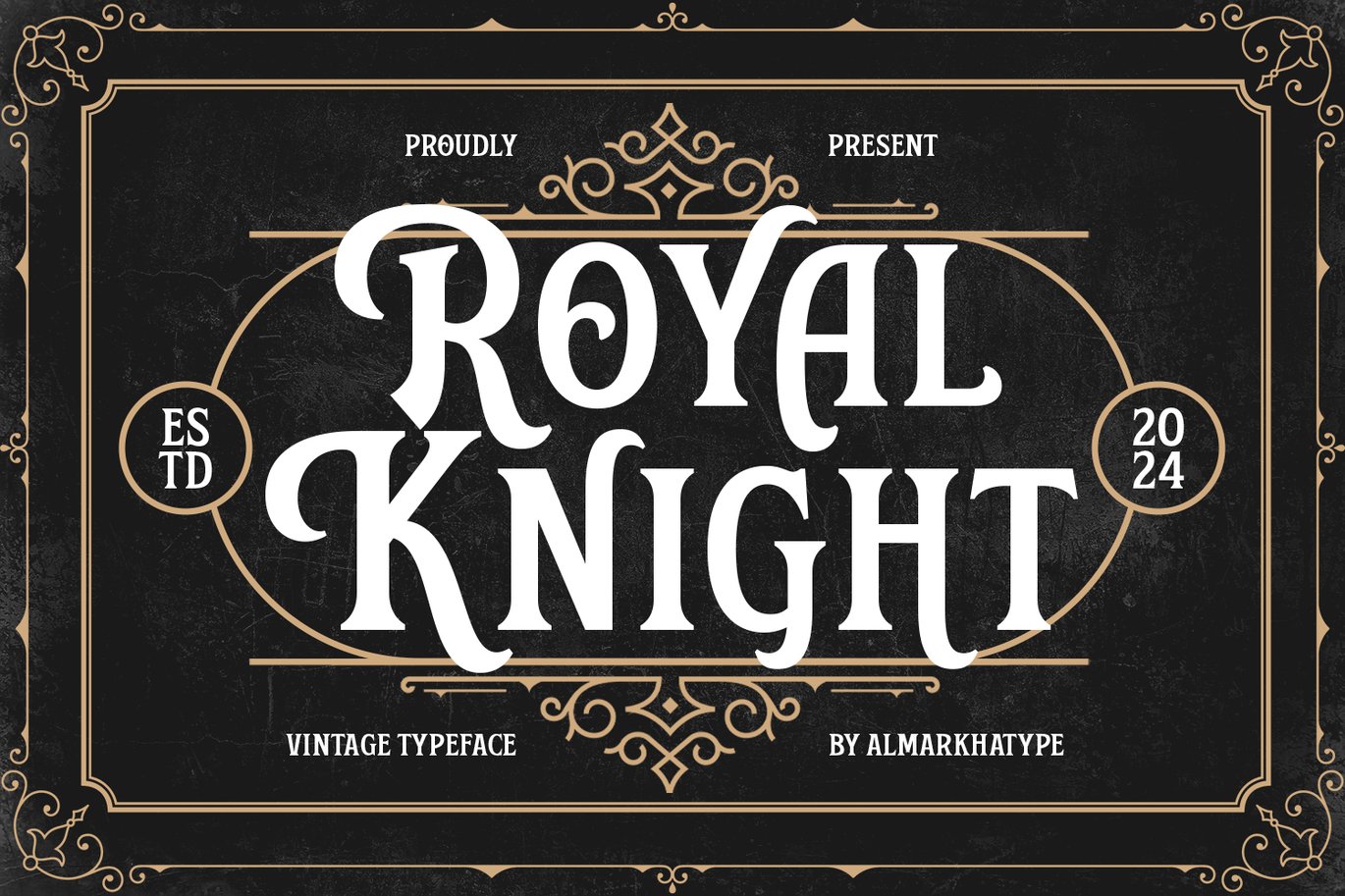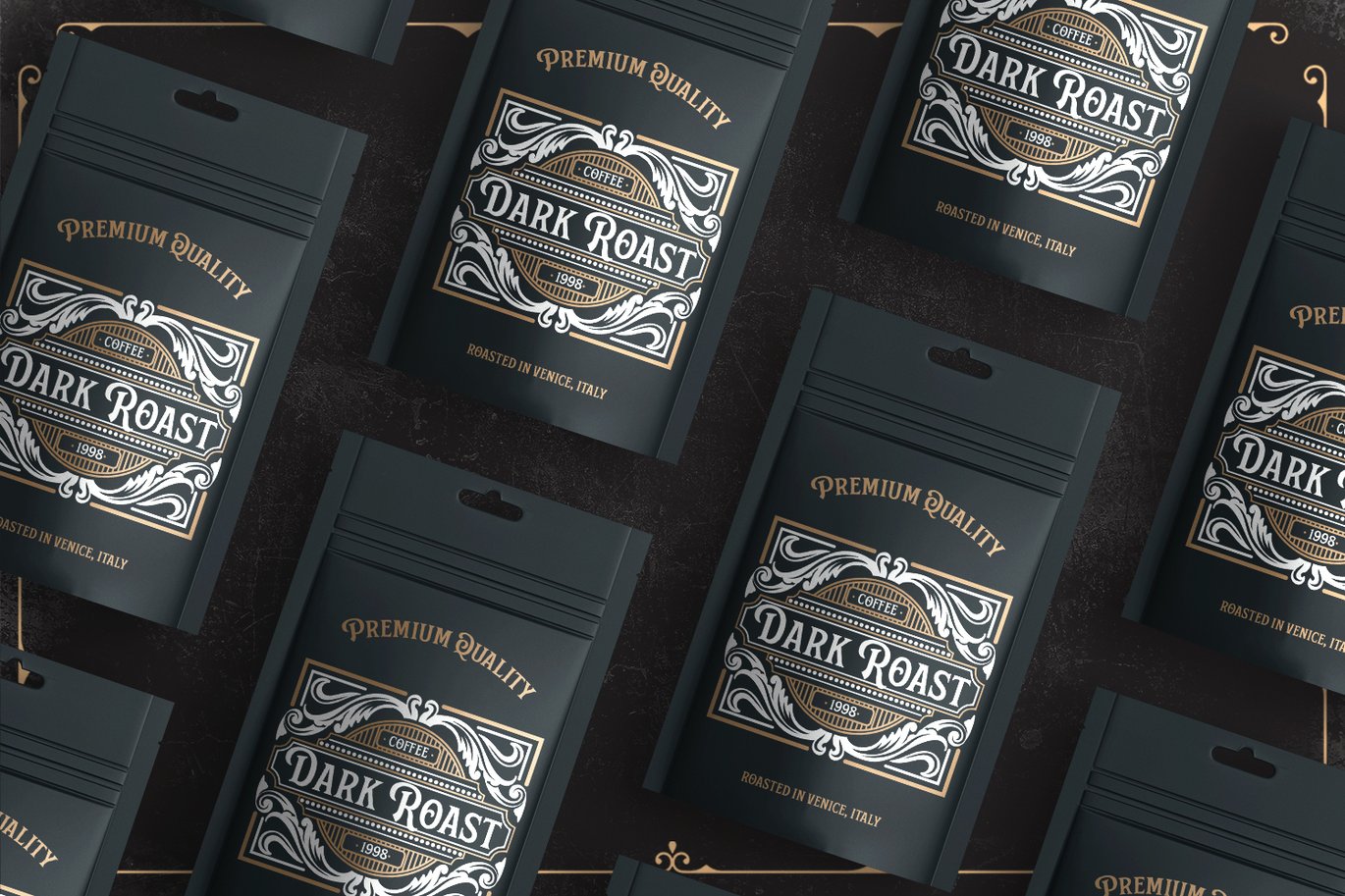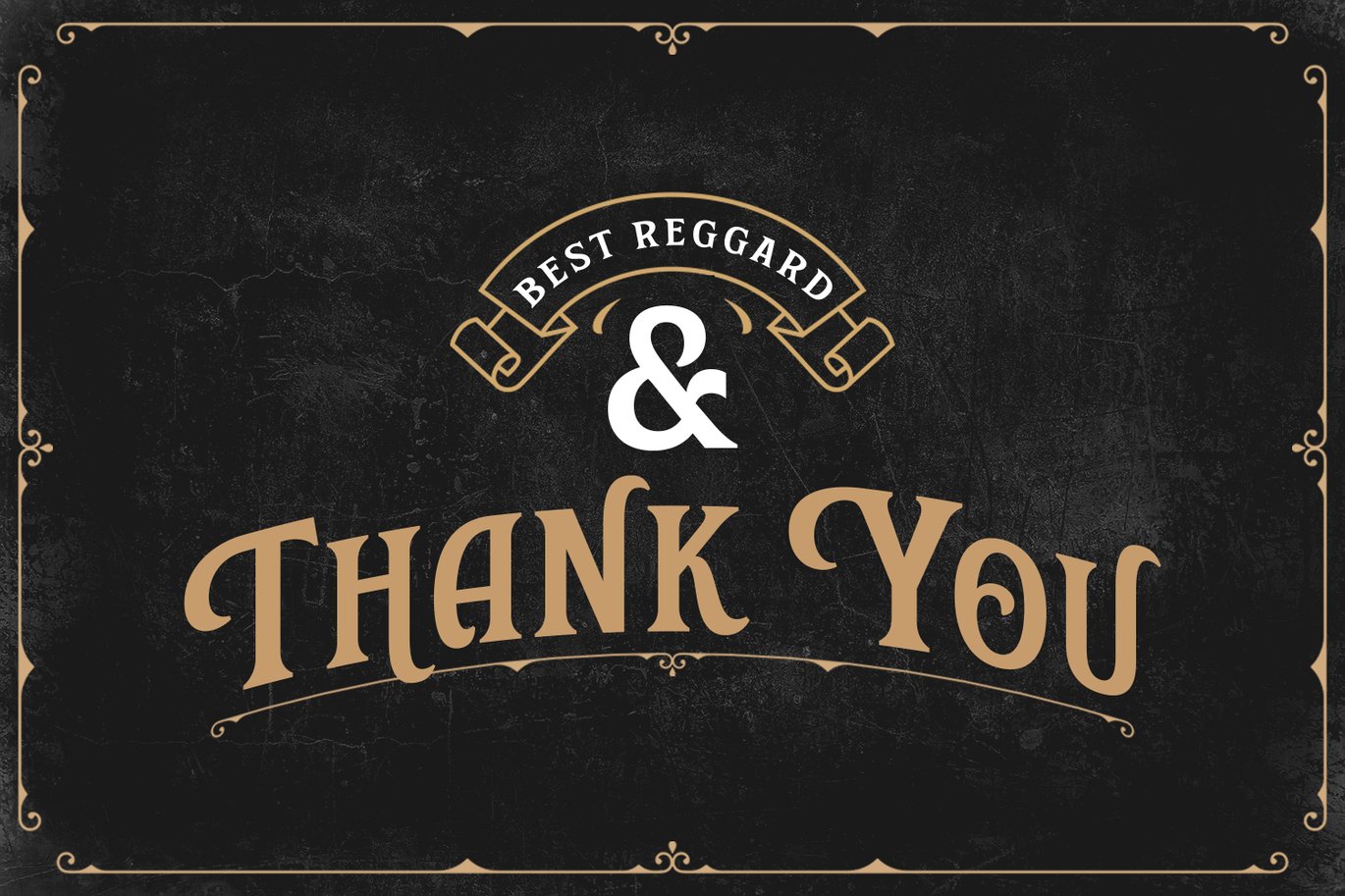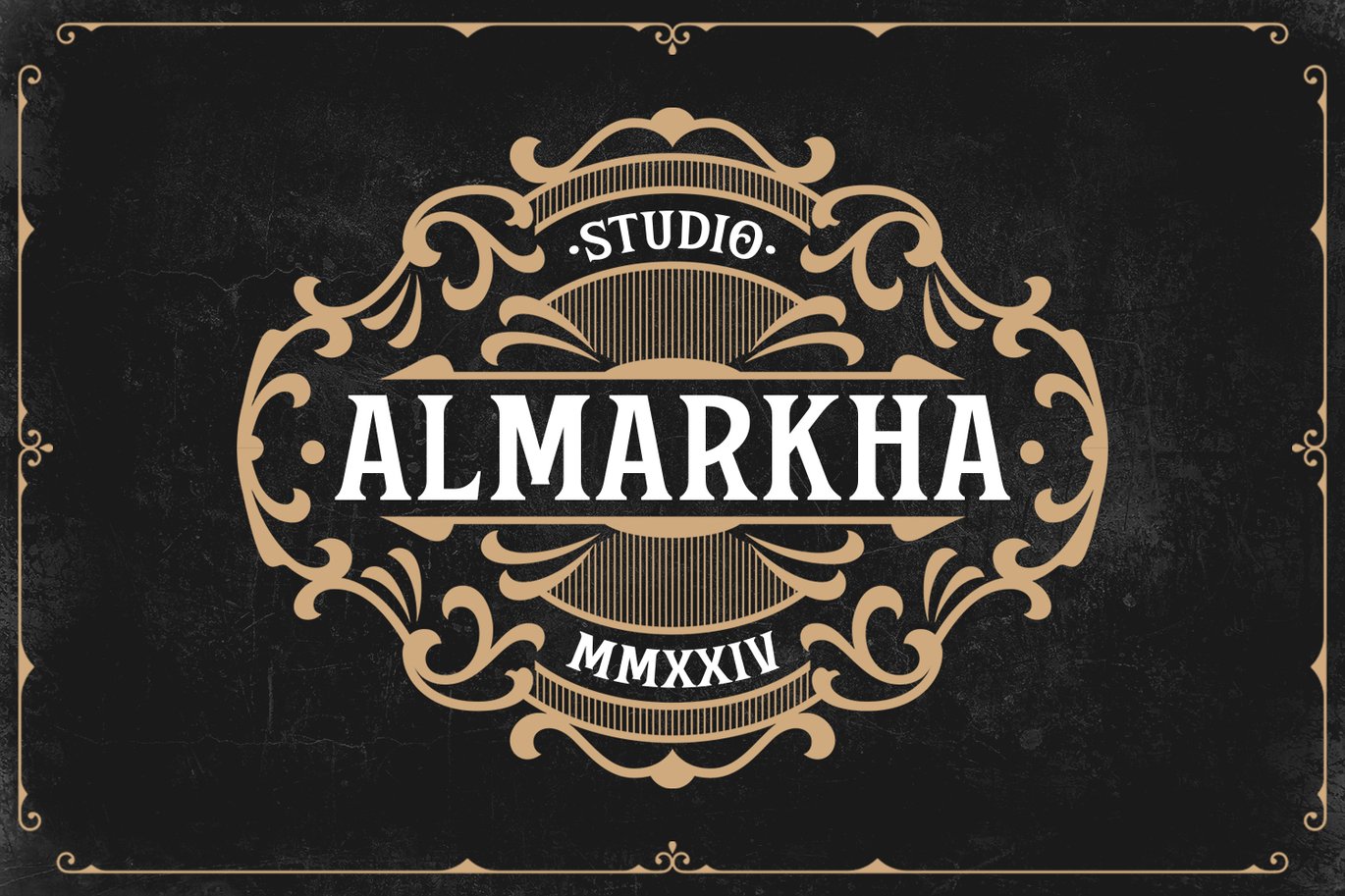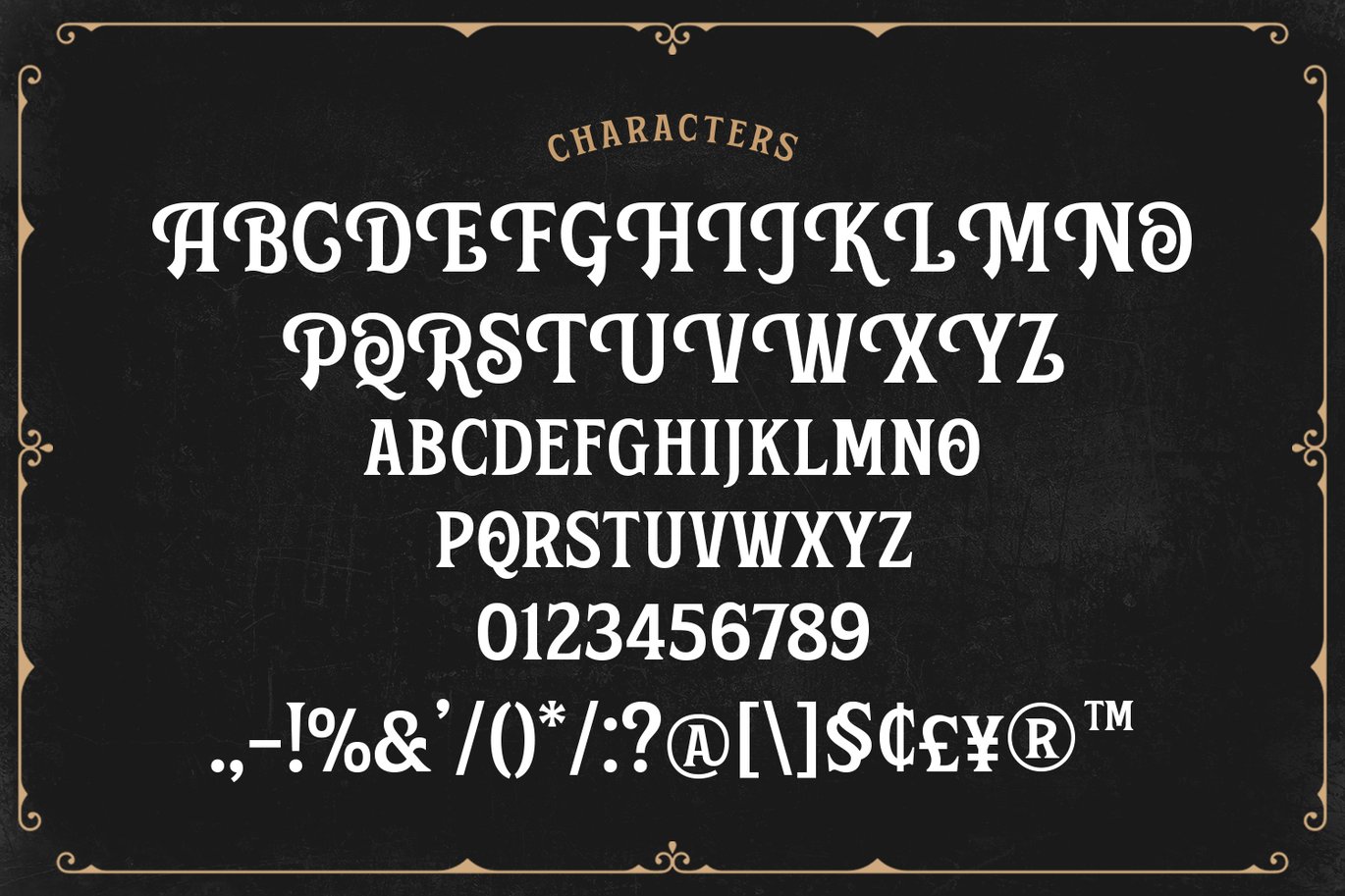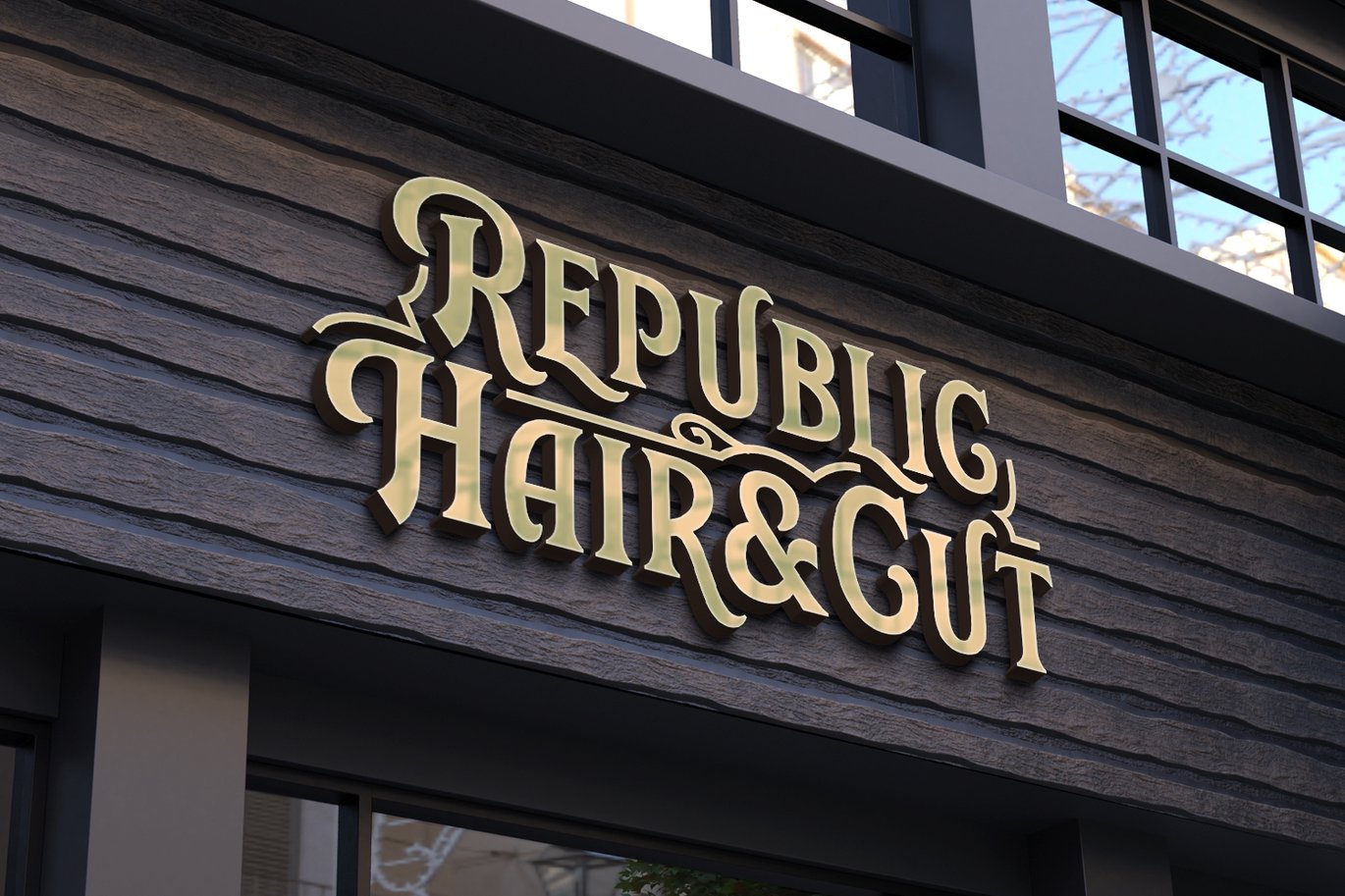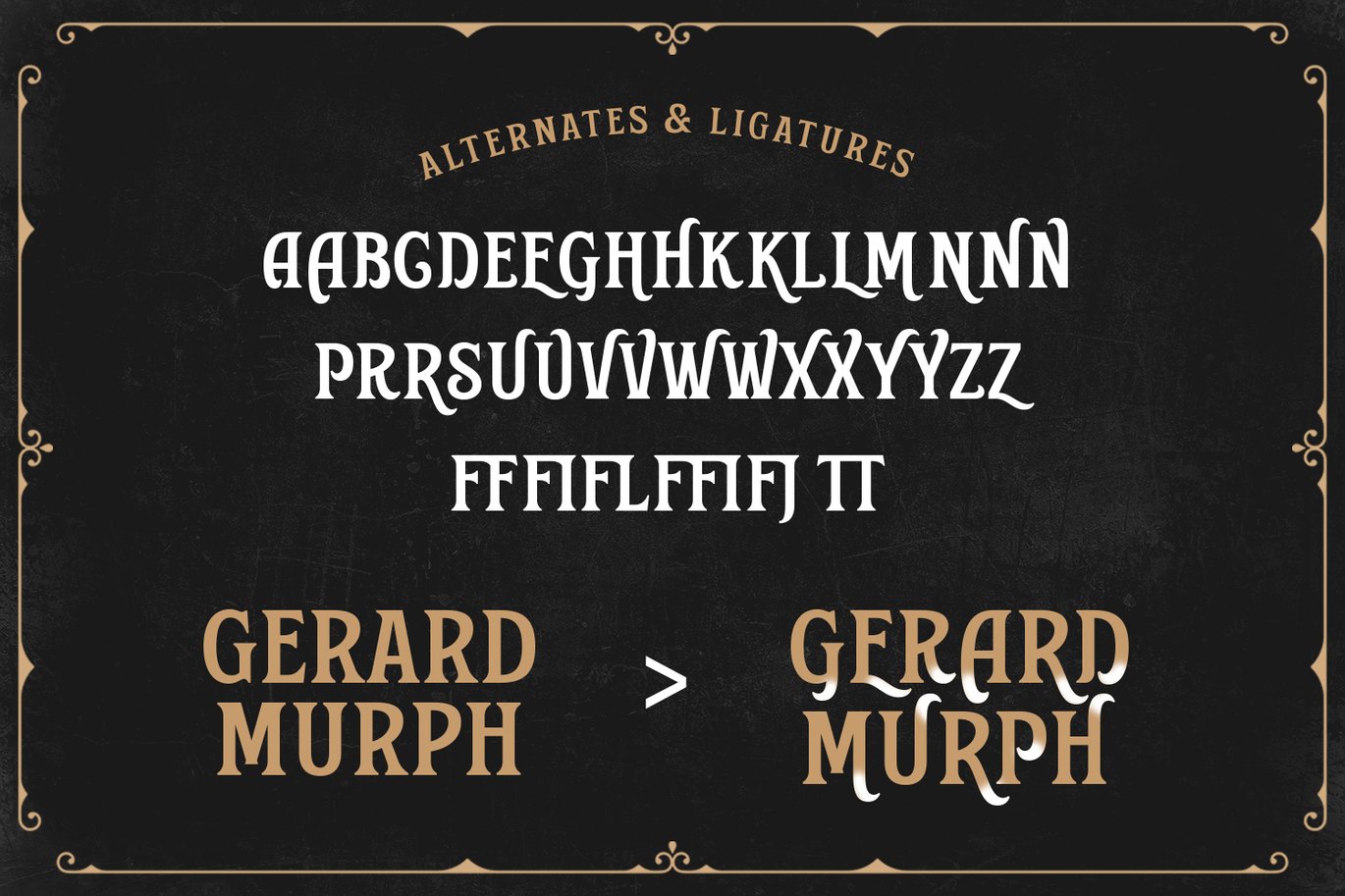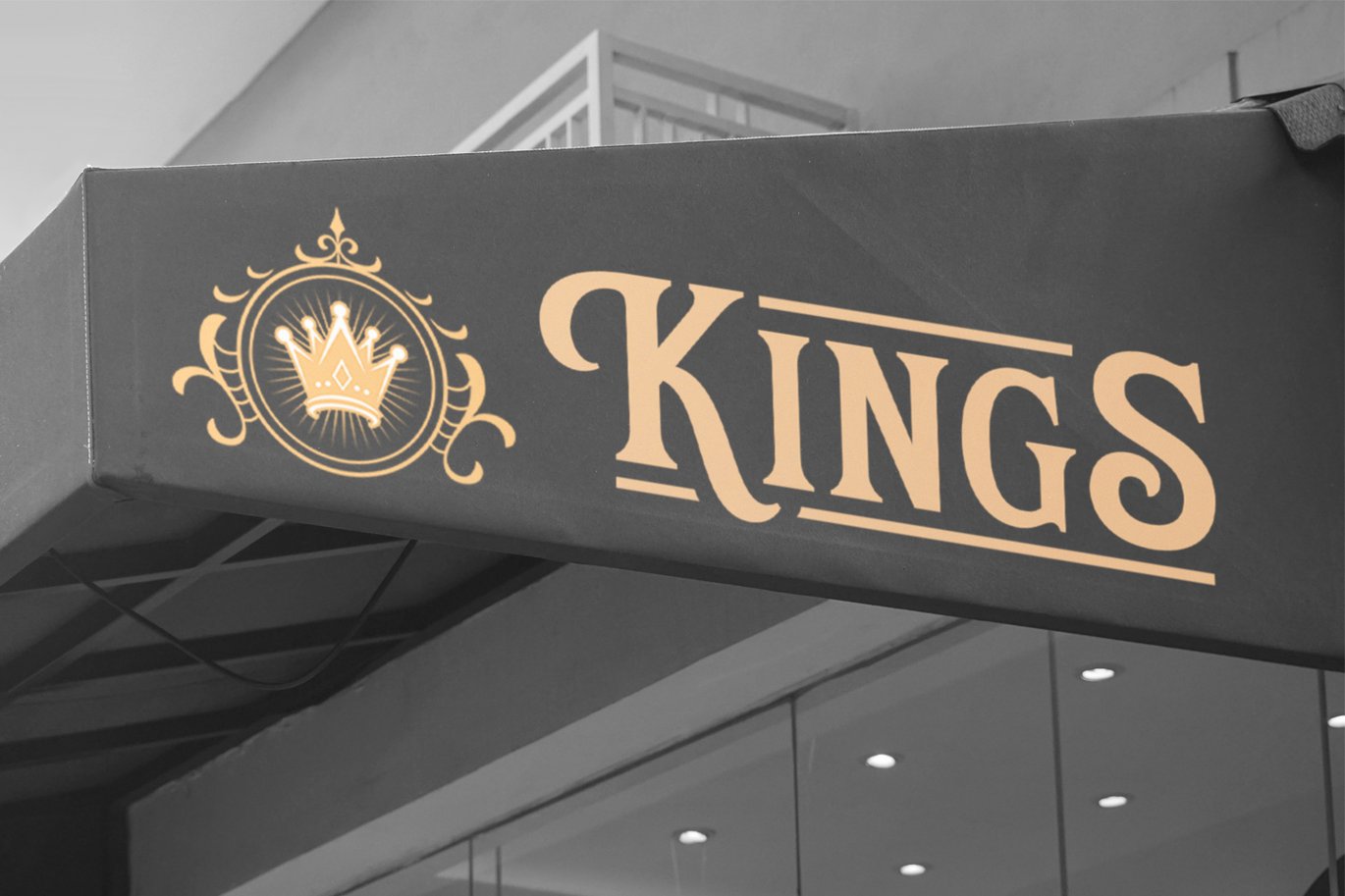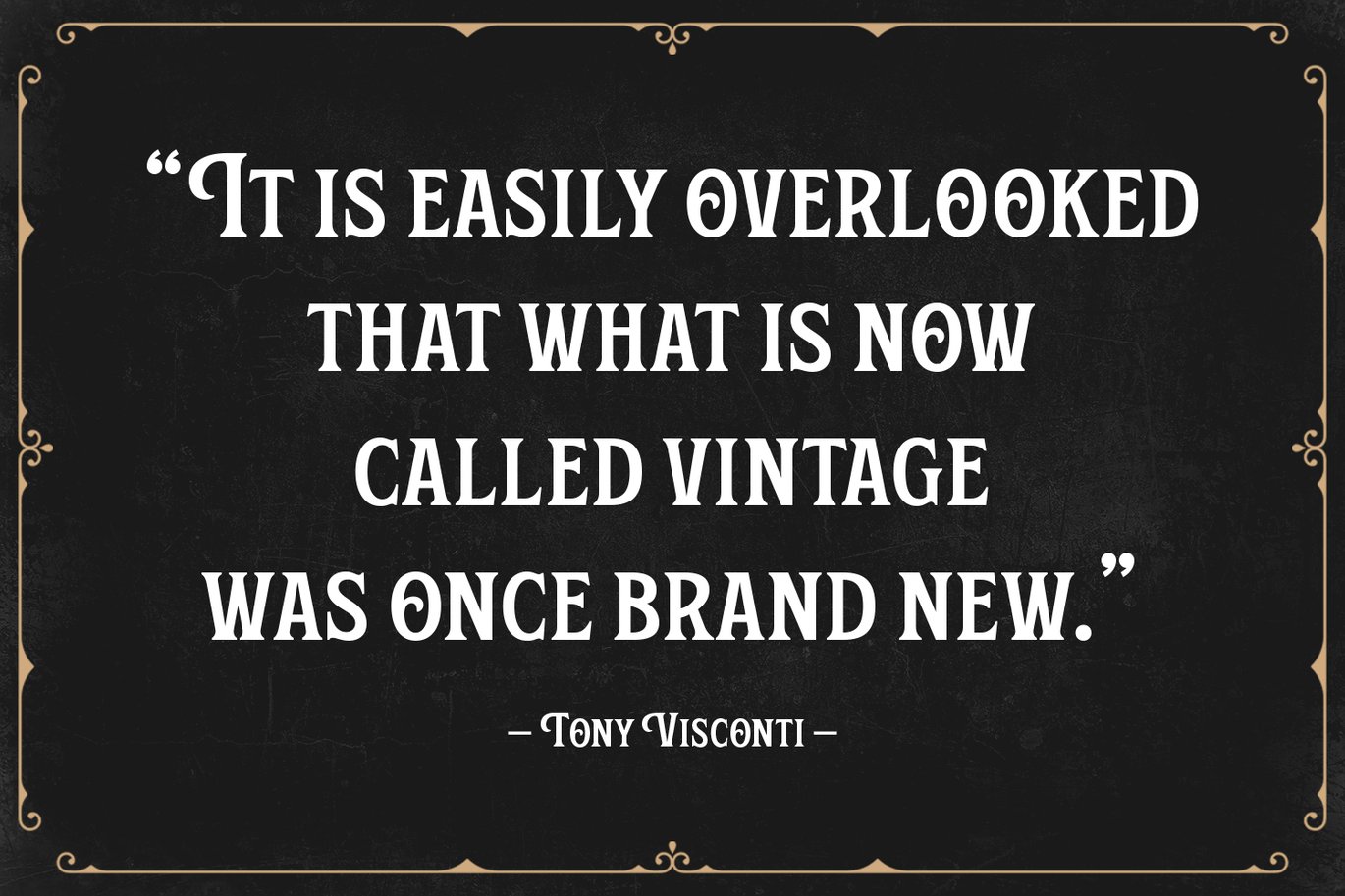
Royal Knight – Vintage Font
Introducing Royal Knight, a vintage-inspired display typeface with special alternative glyphs and multilingual support. Ideal for logotypes and captivating designs, Royal Knight adds intrigue to various projects including headlines, posters, logos, badges, and more. Elevate your designs with the timeless charm of Royal Knight today.
- Ligatures glyphs
- Alternate glyphs
- International Accent